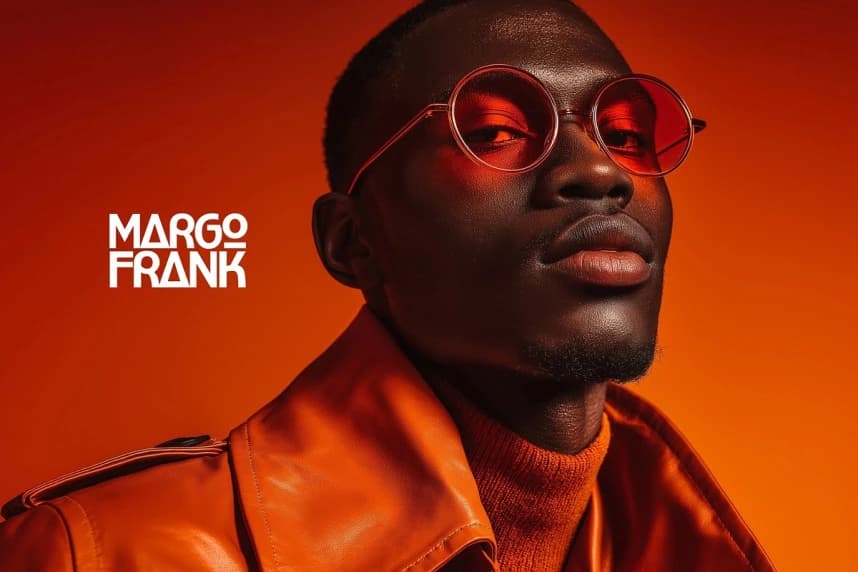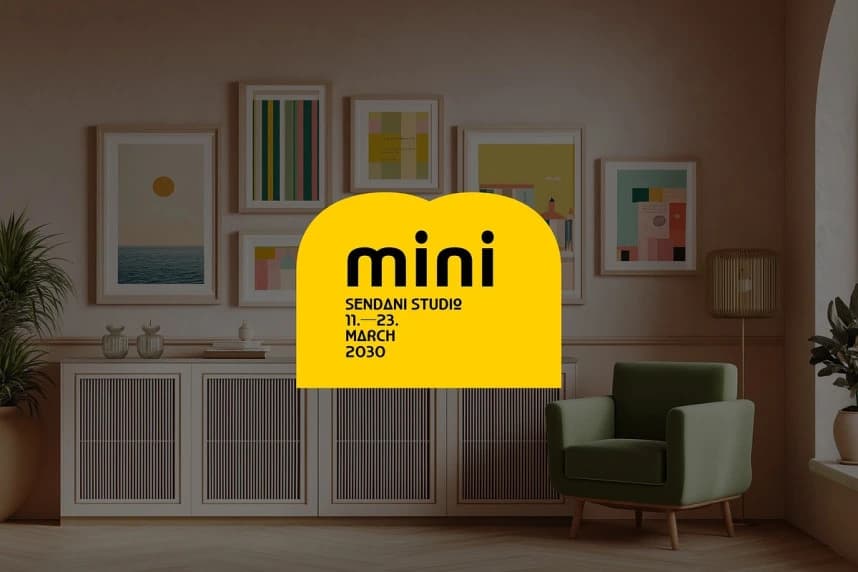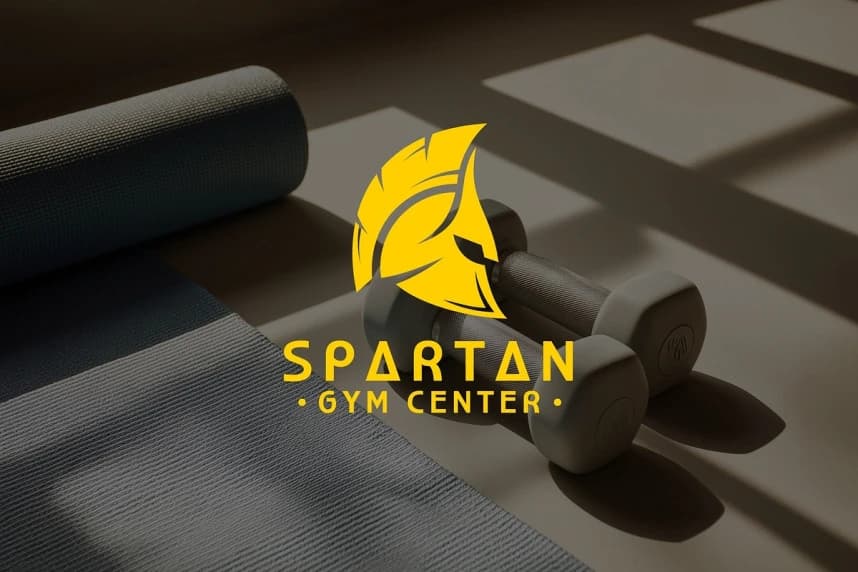
Astro Signal Font
Astro Signal Font is a striking geometric sans-serif typeface designed for those who demand clarity, sophistication, and timeless elegance. With its clean lines, balanced proportions, and luxurious aesthetic